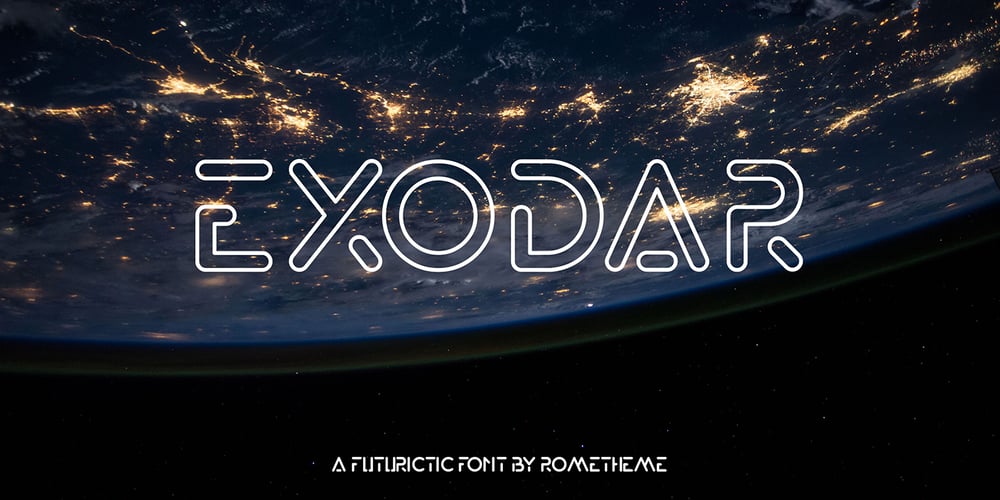
Exodar Font Family was designed by Yahdi Kumala and published by Rometheme. Exodar contains 2 styles and family package options. Exodar is a modern futuristic typeface with elegance in every single letter. This font looks modern, sci-fi, futuristic, future, readable, stylish, catchy and easy to use. Exodar is the best choice for your professional design projects, including: logos, poster design, t-shirts, headlines, flyers, cd cover albums, quotes, business cards, branding, magazines, social media, advertisements, product design, or anything that need a modern or futuristic look.